The fonts shaping brand identities this year from timeless workhorses to bold new arrivals.
Typography is one of the most revealing decisions a designer makes. Ask a creative professional which font they admire and you’ll get a thoughtful answer. Ask which one they actually open a new project with, and you’ll learn something far more honest. That distinction between what inspires and what works is exactly what makes type choices so interesting in 2026.
This year’s landscape is not defined by a single trend. There’s a quiet pull in two directions: on one side, the enduring appeal of neutral, reliable grotesques that get out of the way and let the brand do the talking. On the other, a growing appetite for typefaces with genuine personality fonts that carry texture, cultural weight, and a point of view. The 15 typefaces below reflect both tendencies. They’re the ones the design community keeps returning to, project after project.
1. Helvetica
No conversation about the best fonts for branding 2026 begins without this one. Helvetica has topped designer surveys for decades, and its position remains unchallenged. Critics call it safe. Devotees call it smart. Both are right. Its neo-grotesque construction designed in Switzerland in 1957 by Max Miedinger and Eduard Hoffmann strips away personality in favour of pure function. For brands that need to communicate authority without noise, that neutrality is the entire point. Monotype’s updated release introduced optical sizing for micro, text, and display contexts, making it as relevant for digital interfaces today as it was for print decades ago.
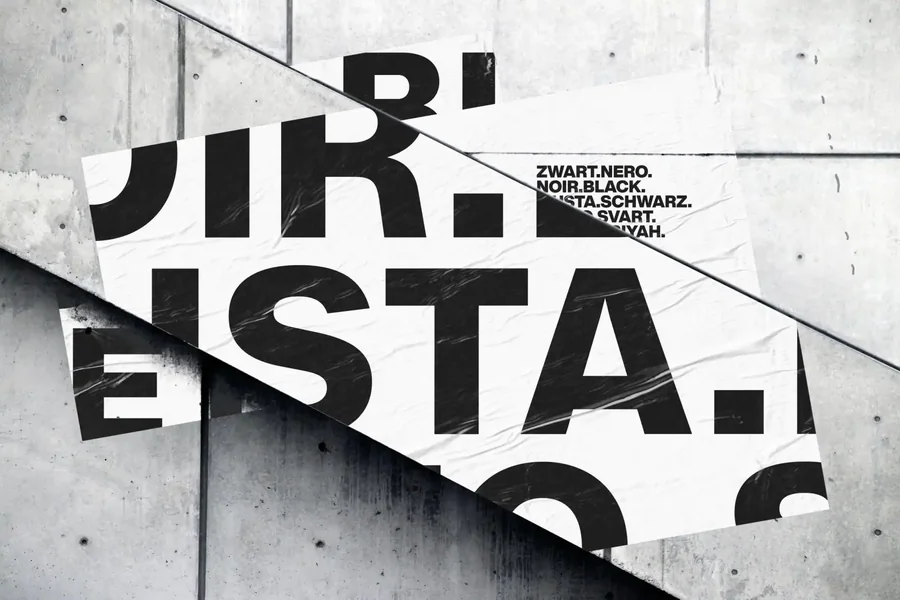
2. Poppins
Geometric, generous, and free Poppins has become one of the most downloaded typefaces on Google Fonts for very good reason. Designed by Ninad Kale and Jonny Pinhorn at the Indian Type Foundry, its near-uniform stroke widths and wide proportions give it a warmth that geometric fonts often lack. It spans languages too, supporting both Latin and Devanagari scripts. Whether it’s a fintech app, a lifestyle startup, or a non-profit campaign, Poppins rarely feels out of place. For independent studios and early-stage brands managing budgets carefully, it’s one of the strongest free options available.
3. Futura
Almost a century old and still one of the most relevant typefaces designers use in 2026. Paul Renner’s 1927 geometric masterpiece was built on the Bauhaus principle that form follows function circles, triangles, and straight lines arranged with mathematical precision. That geometric authority has made it the font of choice for brands ranging from Louis Vuitton to Nike. Its low x-height gives headlines an elegance that few geometric sans serifs can match. Like Helvetica, it has received a modern optical update through Monotype’s Futura Now release, preserving its character while expanding its range.
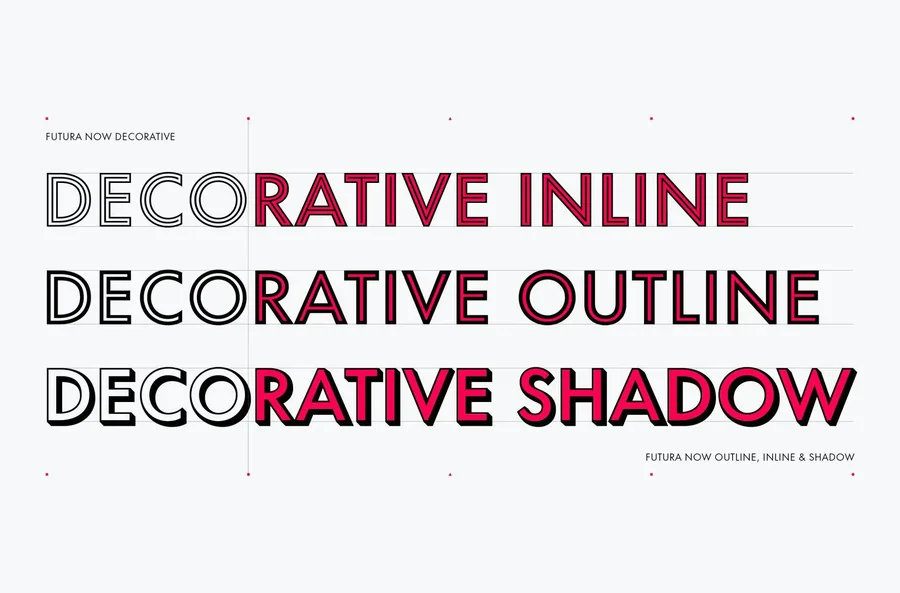
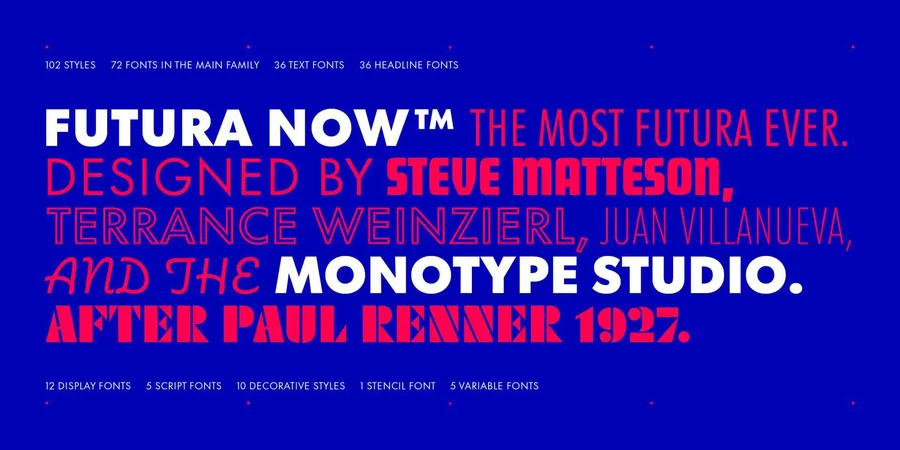
4. Inter
If there is one typeface that has genuinely earned the label of “modern classic” since its 2017 release, Inter is it. Designed by Rasmus Andersson specifically for screen legibility, it features a tall x-height, open letterforms, and ink traps at small sizes that improve readability in complex UI environments. Available as a variable font and completely free, it consistently ranks among the most-used fonts on Google Fonts globally. Its presence alongside Helvetica and Futura says something significant: Inter has crossed from utility tool to design staple.
5. Inclusive Sans
One of the more meaningful entries on this list. Inclusive Sans, designed by Australian type designer Olivia King and released as a fully variable font in 2025, was built around real accessibility research. Its letterforms avoid mirroring that can confuse readers with dyslexia, its counters are wide and open, and its spacing is generous enough to support neurodiverse readers and those with visual impairments. What makes it notable for brand typography specifically is that it achieves all of this without looking like a compromise. It reads as a confident, contemporary neo-grotesque one that happens to be designed for everyone.
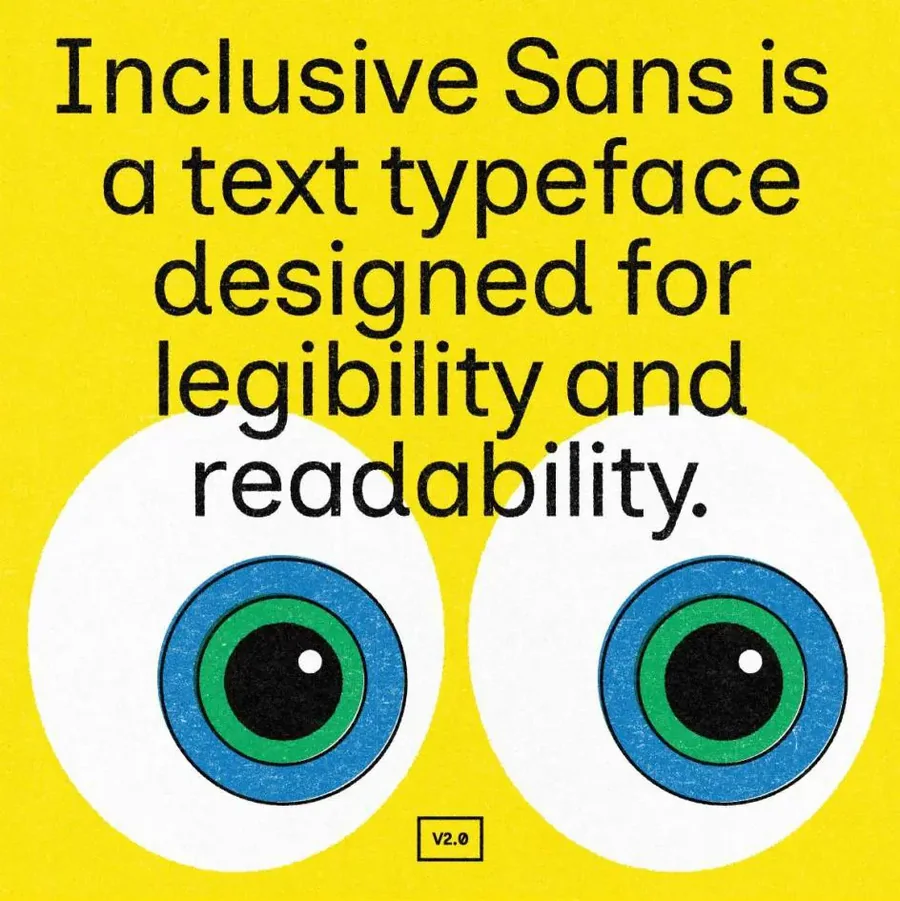
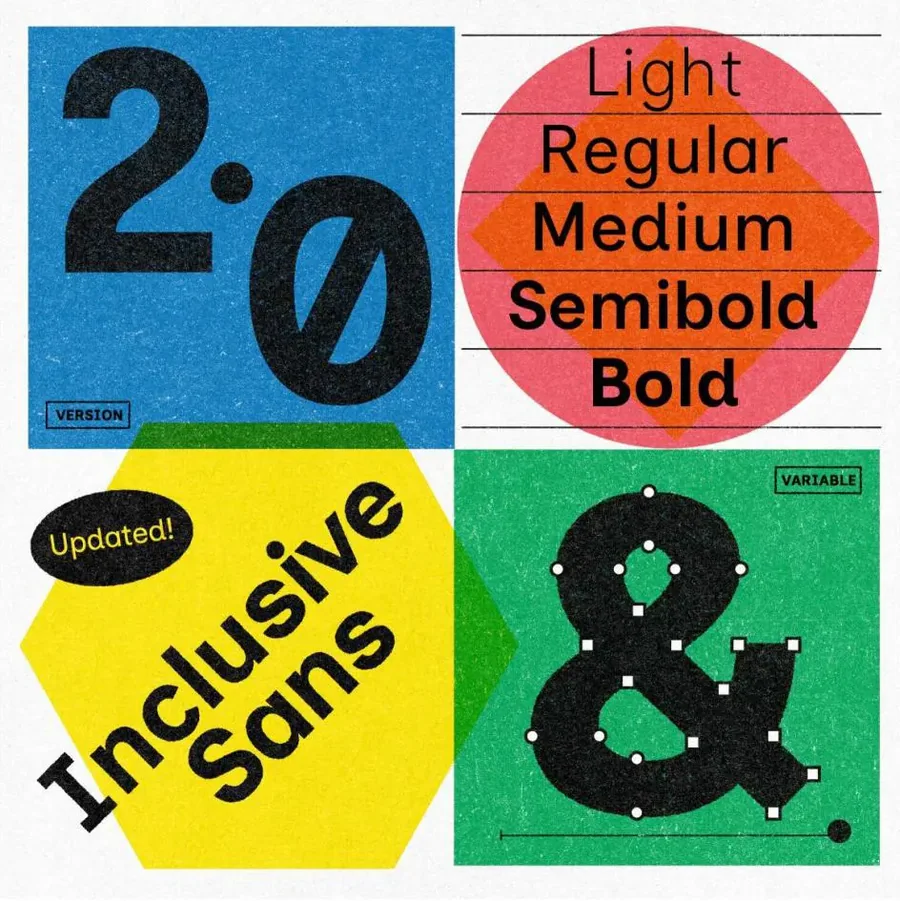
6. Avenir
Adrian Frutiger considered this his finest work, and the design community has largely agreed for nearly four decades. Avenir takes the circular foundations of Futura but introduces subtle humanist corrections slightly thickened strokes, more varied proportions that make it noticeably warmer and more comfortable across longer text. It has been embedded in Apple’s operating systems since 2012, has served as Amsterdam’s corporate typeface, and sits at the core of identities for Disney+, Bloomberg, and Snapchat. The 2025 Avenir Next World expansion added support for over 150 languages and scripts, making it one of the most internationally capable typefaces available.
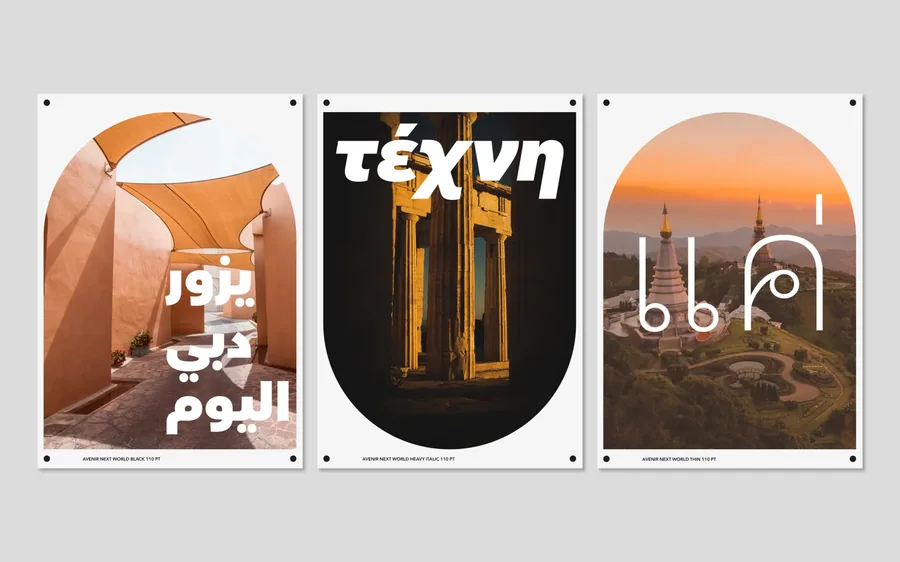
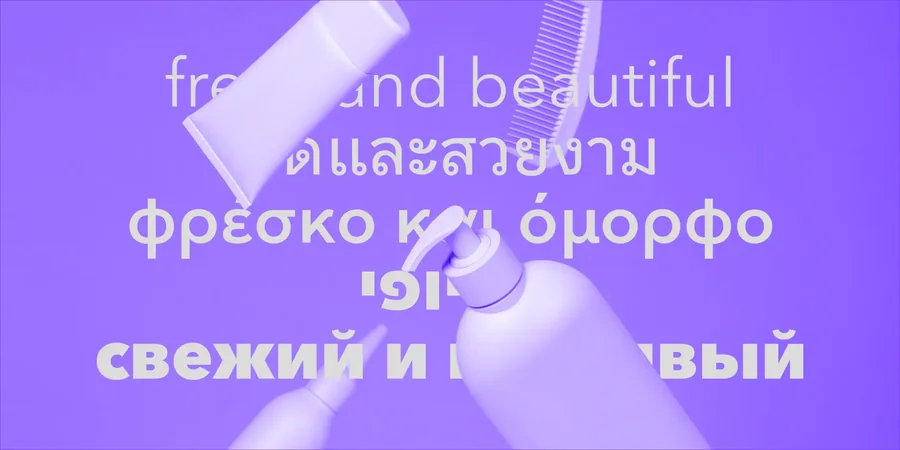
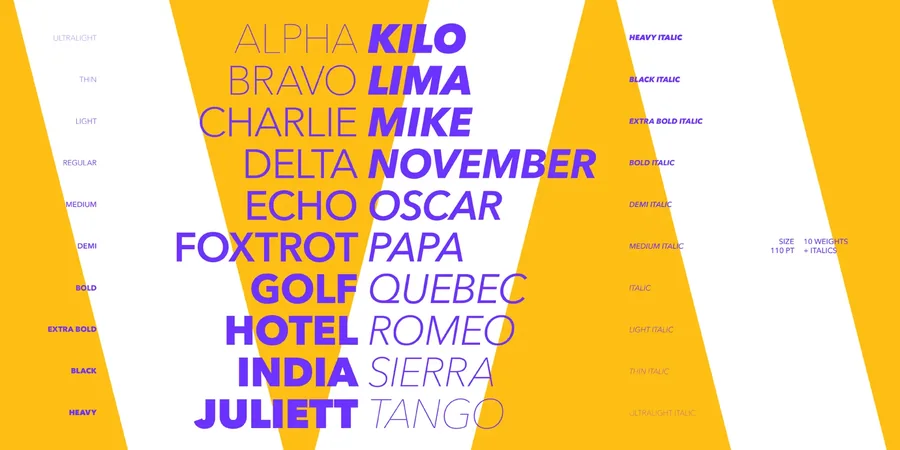
7. Open Sans
Over a decade after its release, Steve Matteson’s humanist sans-serif continues to be one of the most widely deployed typefaces on the internet. It lacks the design prestige of some entries on this list, but that has never been the point. Open Sans succeeds because it is reliably clear, broadly compatible, and genuinely neutral without being cold. Its wide apertures and large x-height make it an excellent body typeface for web interfaces the kind of font that keeps readers comfortable without drawing attention to itself.
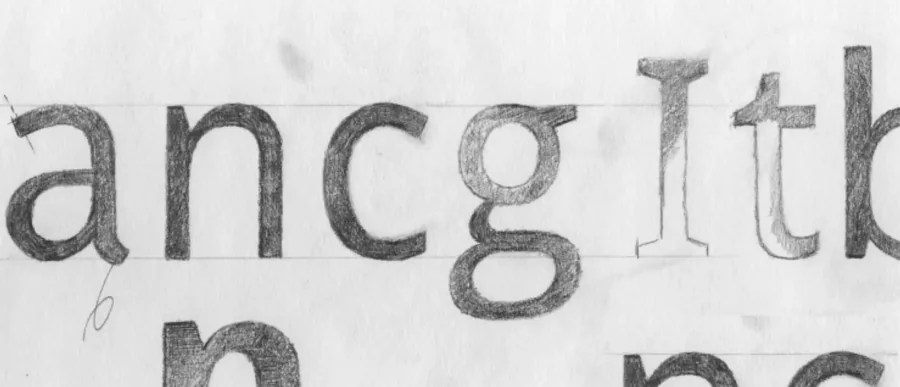
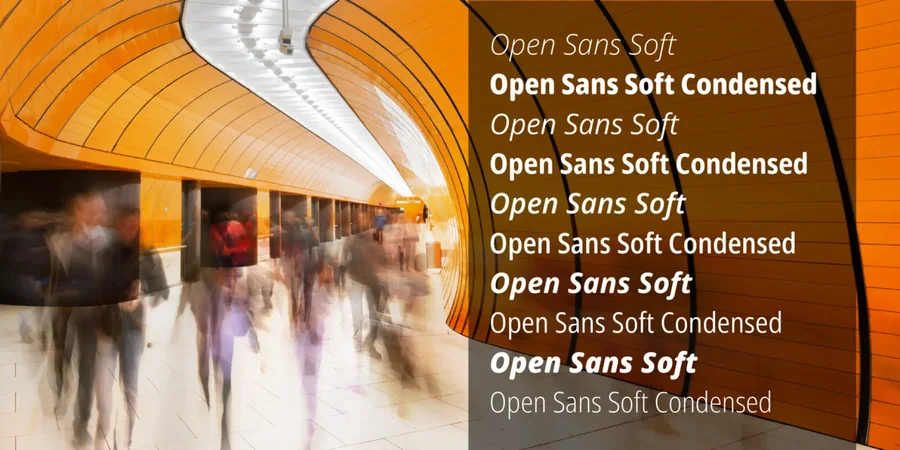
8. Druk
Berton Hasebe’s ultra-condensed display family sits at the opposite end of the design spectrum from Open Sans. Originally developed for Bloomberg Businessweek, Druk was built to occupy space aggressively it starts at Medium weight and only goes heavier from there. Inspired by the graphic power of Barbara Kruger’s typographic work and the tight headline culture of mid-century editorial design, it has become one of the most recognisable display typefaces in editorial and brand design. In a sea of restrained grotesques, its blunt graphic presence still cuts through instantly.